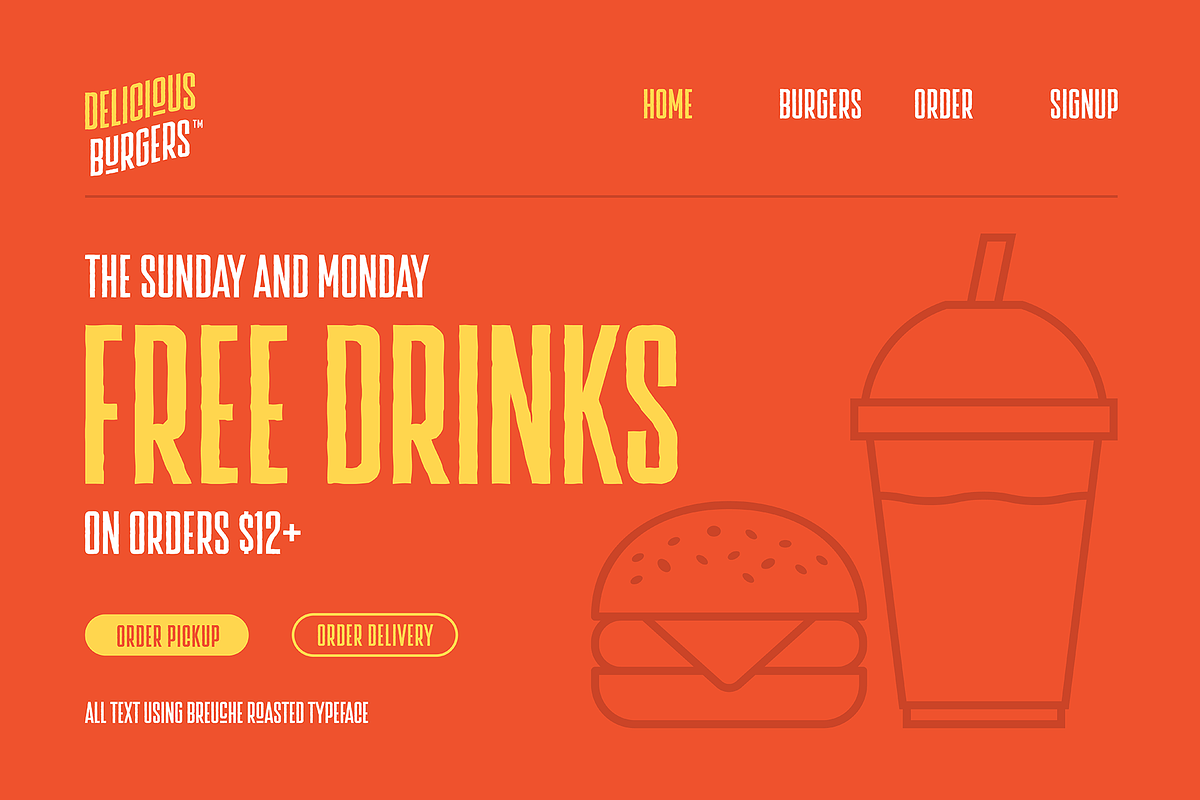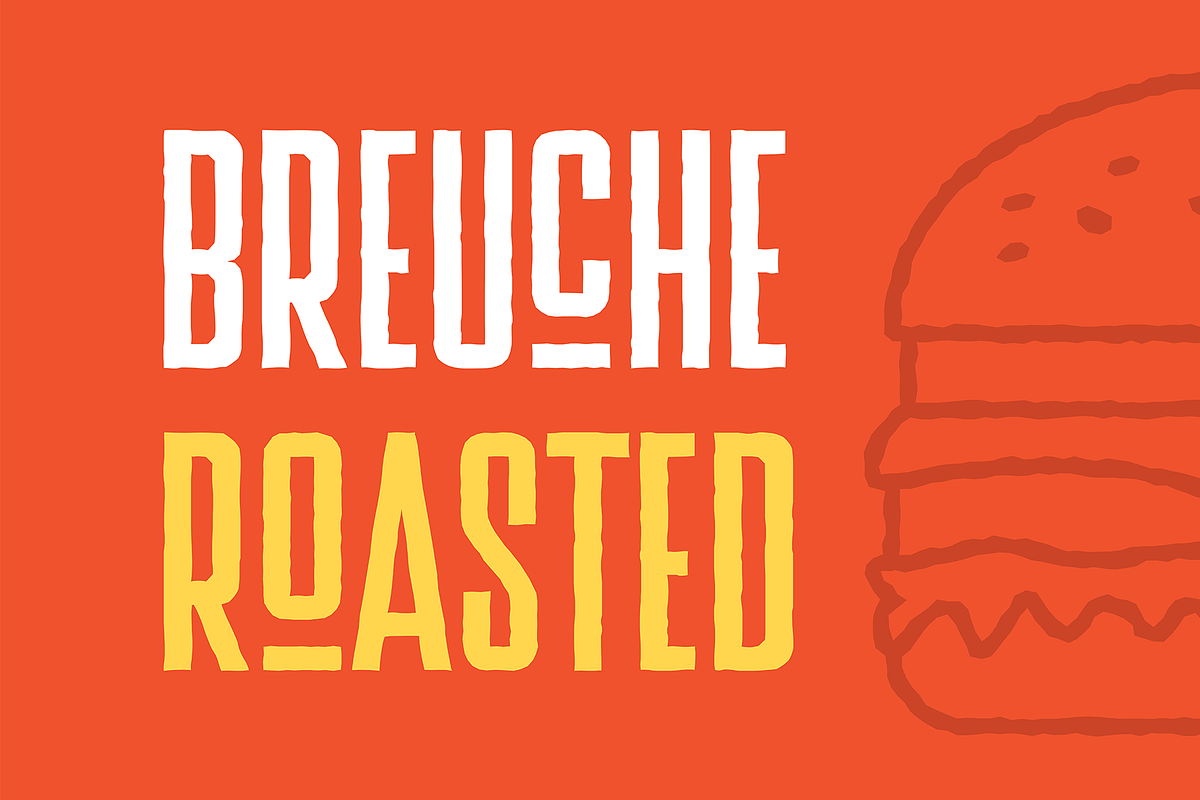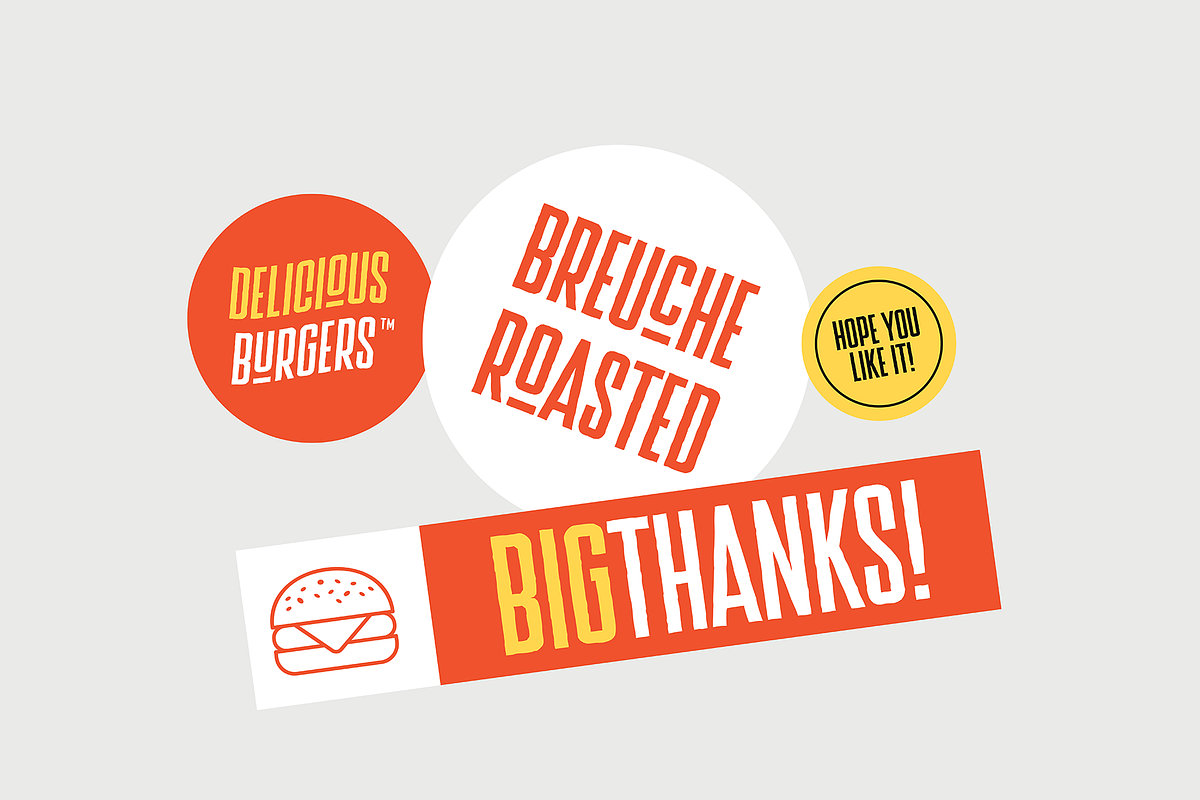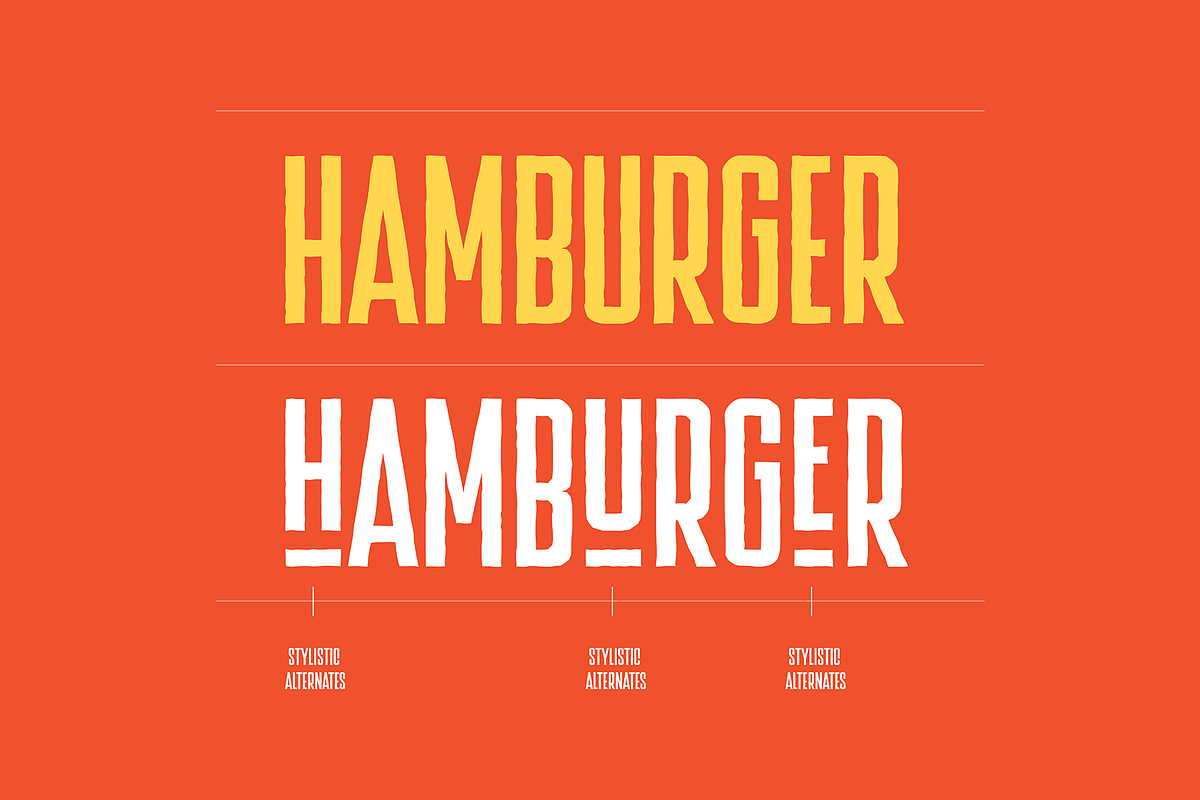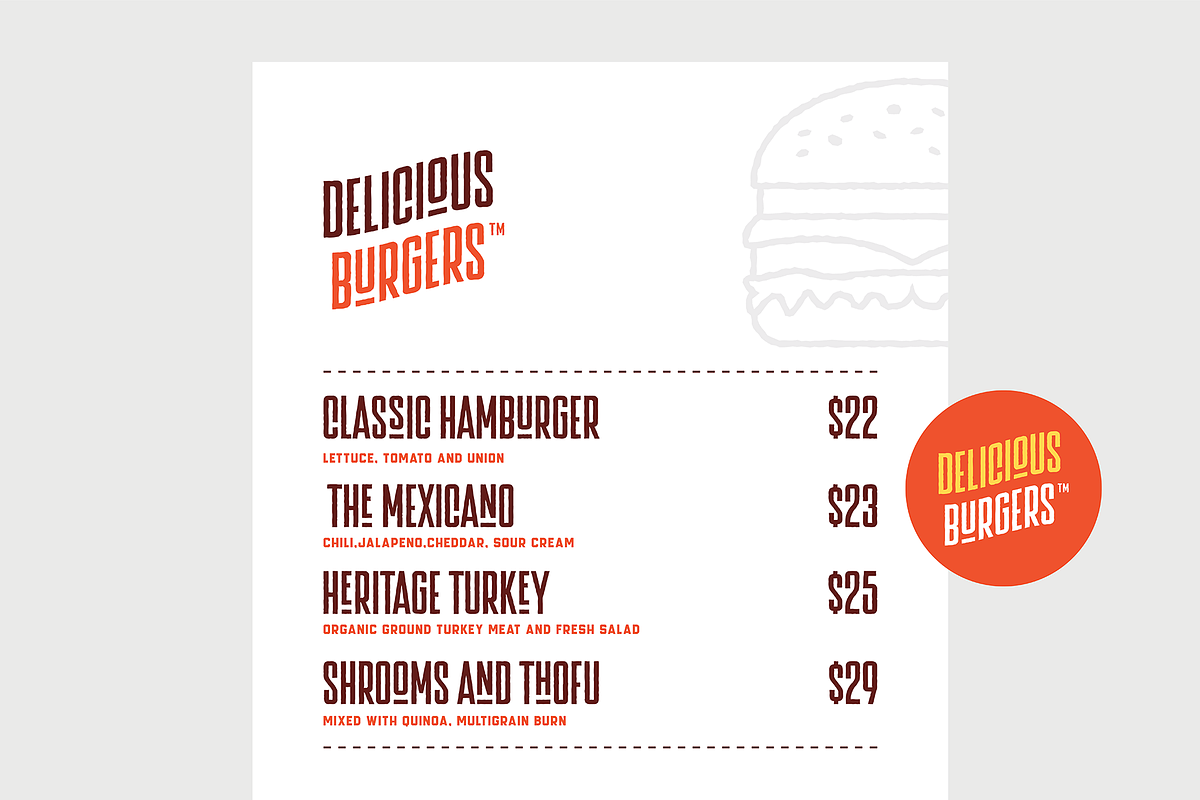
Breuche Roasted
Breueche Roasted is a condensed roughen typeface. Although the old typeface was described as a strange face, it actually has a high level of legibility. Some characters have alternatives such as the letters C-E-H-N-O-S-U
With bold characters that allow Breuche Roasted to be used for, movie titles, headlines, signage, book covers and other creative projects.